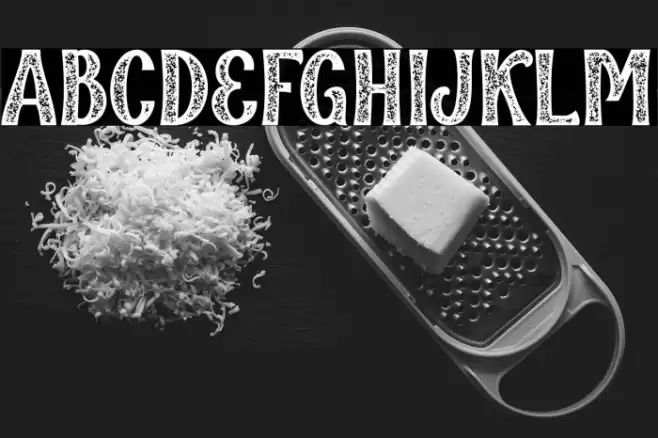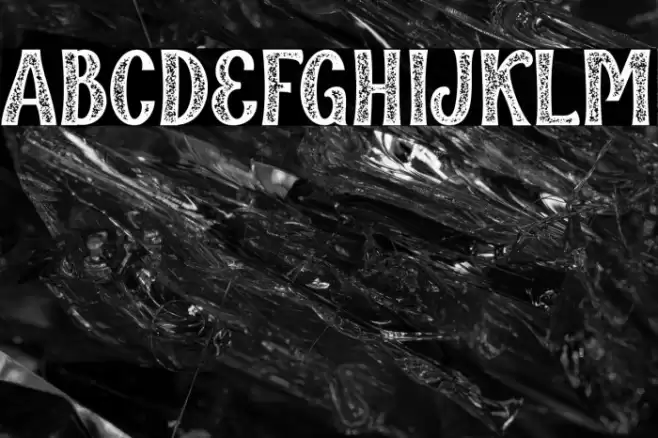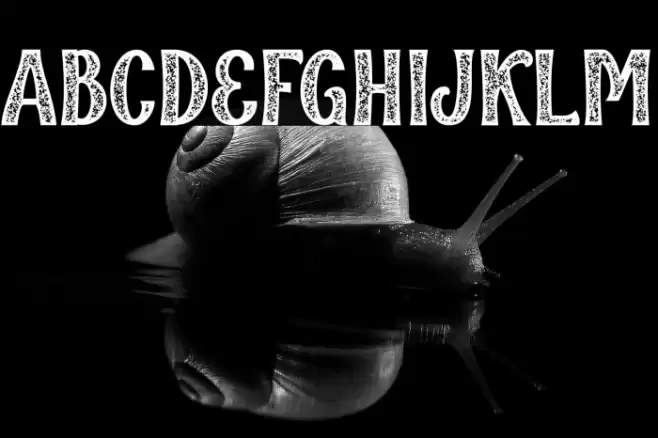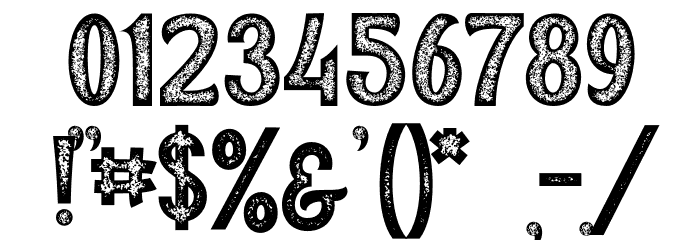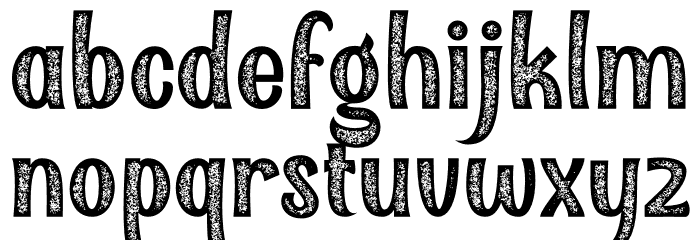
Qallégro Rustic Demo Font
Qallégro Rustic Demo Description
This font features a rustic and textured design, giving it a handcrafted and vintage appearance. The letters are bold with a distressed texture that adds character and depth. The uppercase and lowercase letters maintain a consistent style, with rounded edges and a playful, yet sturdy structure. Numbers and special characters follow the same design, ensuring a cohesive look across all elements. The font's unique style makes it stand out, perfect for projects that require a touch of nostalgia or a handcrafted feel.
A rustic, textured font with a handcrafted, vintage appearance from Uncategorized fonts.
- Font: Qallégro Rustic Demo
- Proposed Projects: Ideal for branding, packaging, posters, and any design project that seeks a rustic or handcrafted aesthetic.
- Overall Style: Vintage
- Use Case: Logos, Posters, Branding